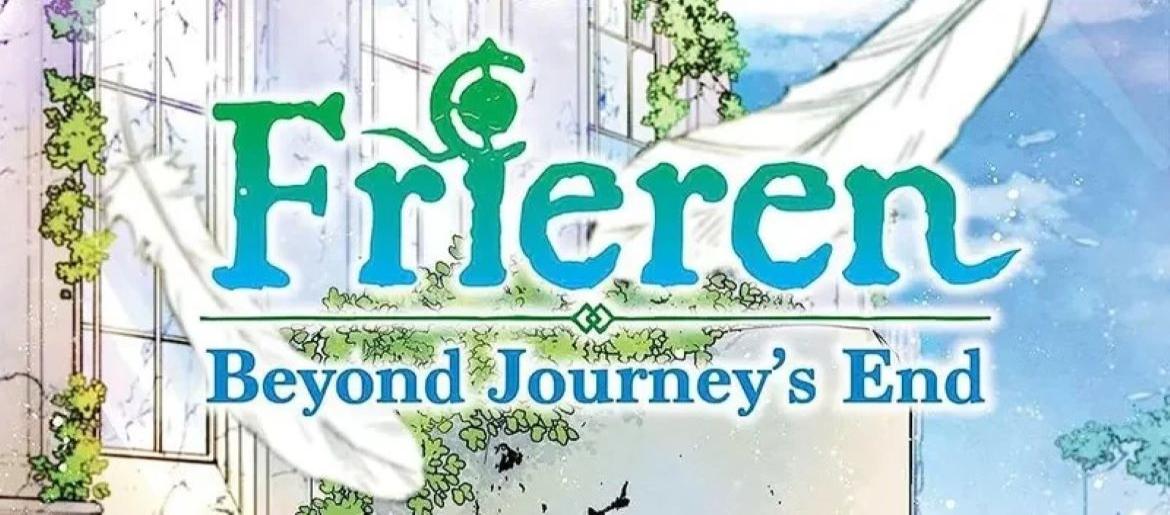
Frieren Font
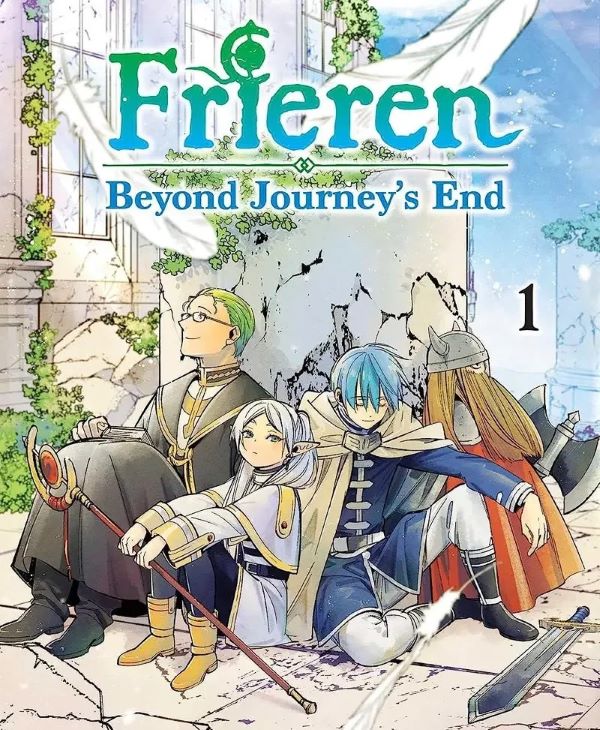
What Font is Frieren?
Frieren Font beautifully captures the timeless and melancholic atmosphere of the fantasy anime Frieren: Beyond Journey’s End. The font is most likely 1756 Dutch Normal, a commercial typeface known for its elegant, old-style serif design that evokes a sense of history and emotion. Its refined letterforms and classical proportions perfectly reflect the series’ themes of memory, loss, and the passage of time. For those seeking a similar feel, we’ve found a free alternative font that mirrors this graceful, storybook aesthetic—ideal for fantasy artwork, novel titles, or nostalgic designs.